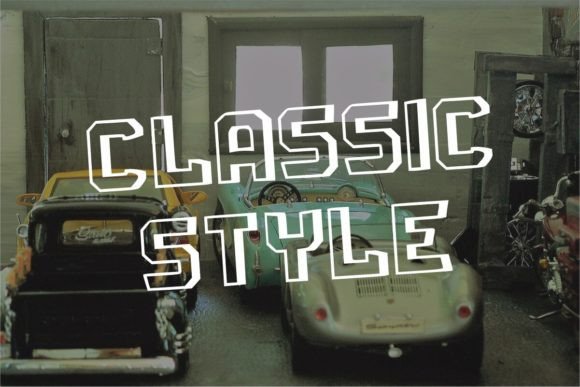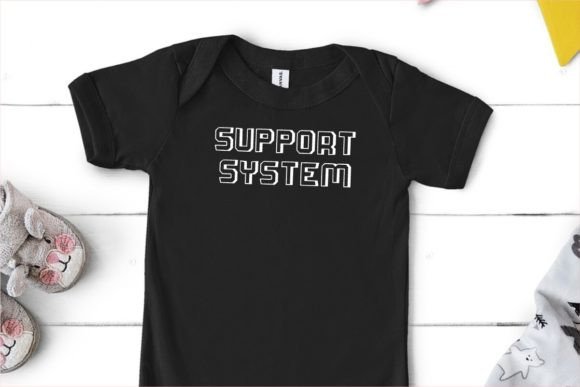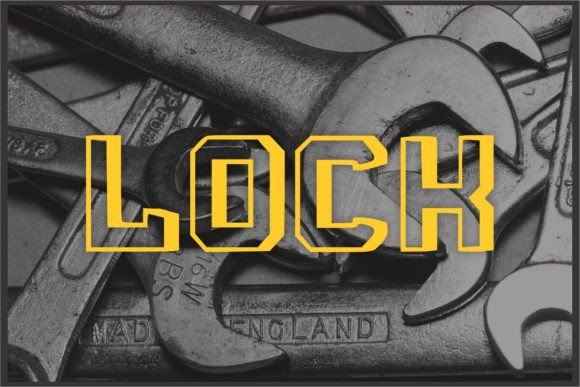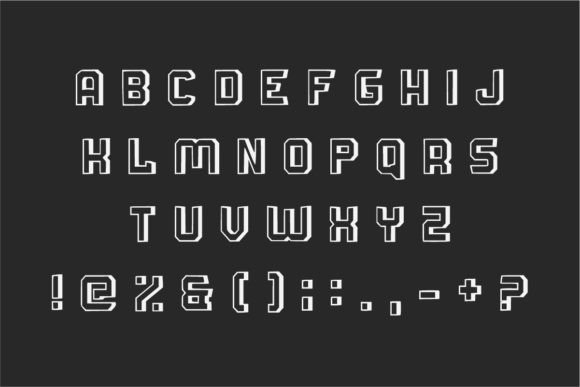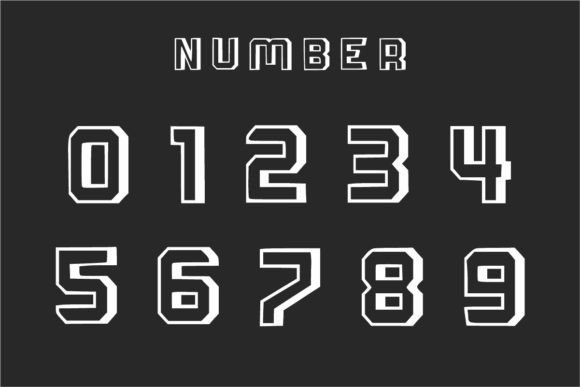
Introduction to Random Garage Font
Have you ever stared at a blank canvas, trying to bring your creative vision to life, only to be met with a sea of boring font options? I know I have. That’s why I’m excited to introduce you to the Random Garage Font – a game-changing design resource that’s about to take your creative project to the next level.
This cool, bold, and unique display font is a high-quality addition to any designer’s library. Whether you’re working on a personal project or a commercial design, the Random Garage Font has the potential to elevate your creation and leave a lasting impression. With its versatility and style, this font is perfect for designers who want to add a touch of sophistication and creativity to their work.
Key Features of Random Garage Font
- Unique and quirky design, perfect for creative projects and artistic expressions.
- High-quality font with a transparent background, ideal for designers looking for a clean and modern look.
- Designed to be a versatile design resource, suitable for a wide range of creative projects, from logos to editorial content.
Honest Review: Random Garage Font
As a designer, I’ve come across my fair share of fonts, but the Random Garage Font has caught my attention. This font is perfect for a creative project that requires a unique touch.
- ✨ The font has a high quality, bold, and edgy feel to it, making it perfect for a design resource that demands attention.
- ✨ The transparent background makes it easy to layer and blend with other design elements.
- ⚠️ The font’s bold style can sometimes make it difficult to read, especially for large blocks of text.
- ⚠️ It’s not suitable for projects that require a lot of subtlety and nuance.
Overall, I’m impressed with the Random Garage Font’s potential to elevate a design project. While it may not be perfect for every project, it’s definitely a valuable addition to any designer’s toolkit.
The Random Garage Font is a unique and versatile design resource that can elevate any creative project. With a transparent background, this high-quality font can be easily integrated into various design applications.
The Random Garage Font is ideal for creative projects such as:
- Typography projects
- Brand identity design
- Print materials
With its high-quality design and transparent background, the Random Garage Font is a valuable resource for any creative project.